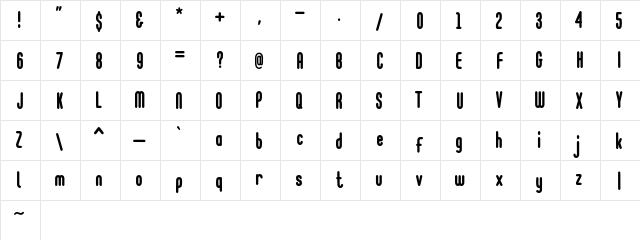
Go Cloud Regular
| Foundry | Polah |
| Designer | Polah |
Design Context for Go Cloud Typeface
Go Cloud offers clean, dependable letterforms without strong stylistic allegiance, making it a practical choice for designers who need flexibility.